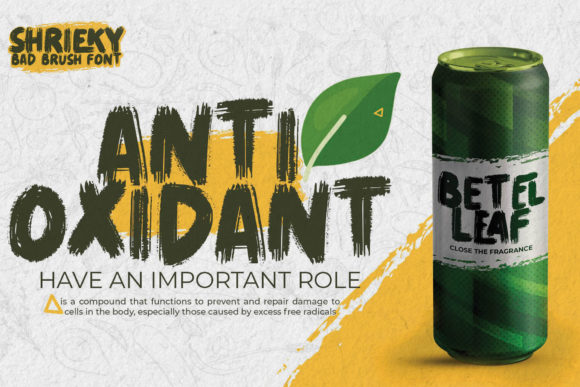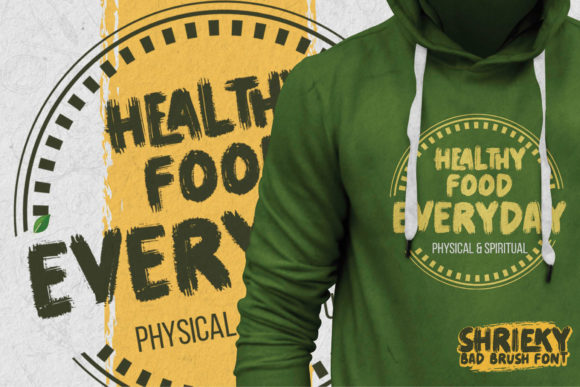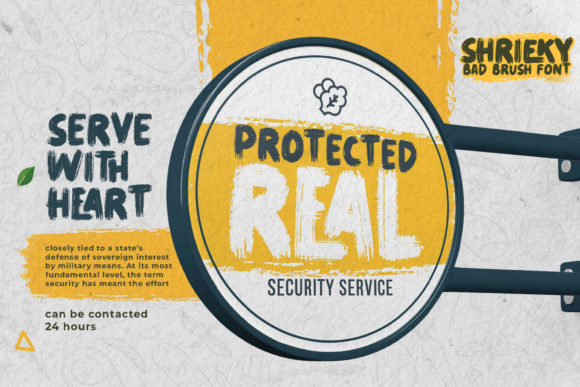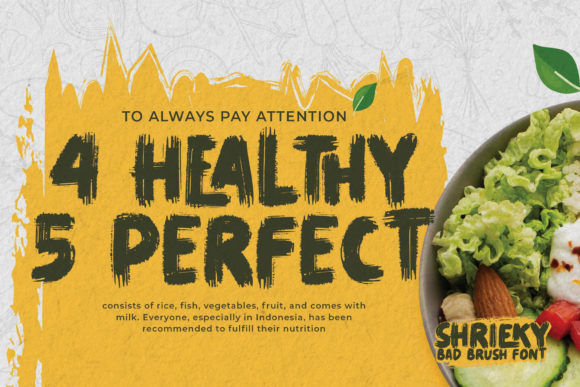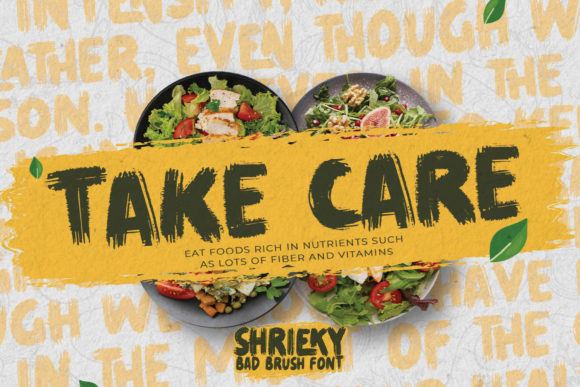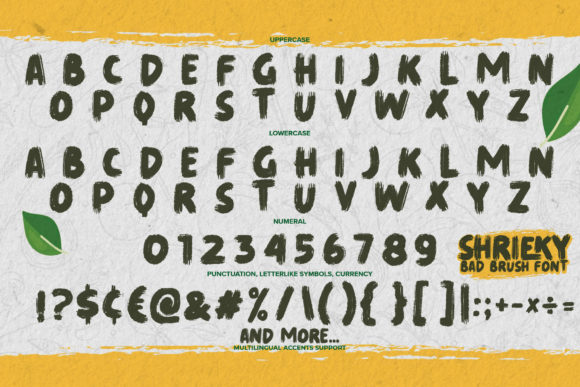
Introduction to SHRIEKY Font Font
Fonts play a crucial role in design, and the SHRIEKY Font font is a typeface that brings both character and versatility to any project. Whether you’re working on a branding project, a website, or a print design, the SHRIEKY Font font offers a unique style that can elevate your work.
This font SHRIEKY is great for your next creative project such as logos, printed quotes, invitations, cards, product packaging, headers, Logotype, Letterhead, and perfect for logos & branding, invitation, advertisements, product designs, stationery, wedding designs, label, product packaging, special events or anything that needs a handwriting taste.
It adds a charming and relaxed natural look to your text This font is PUA encoded which means you can access all of 16 Ligatures glyphs.
Key Features of SHRIEKY Font Font
• ✅ High-quality typeface designed for professional use
• ✅ Includes a wide range of glyphs and characters
• ✅ Ideal for logos, branding, websites, and print
Why Choose SHRIEKY Font Font?
The SHRIEKY Font font is more than just a typeface – it’s a design tool that helps you communicate your message with style and clarity. Its unique character set and versatile design make it suitable for a wide range of applications, from elegant invitations to bold headlines.
With its carefully crafted letterforms and balanced proportions, the SHRIEKY Font font ensures readability and visual appeal across all mediums.
What makes SHRIEKY Font font special?
The SHRIEKY Font font stands out with its unique design, exceptional readability, and versatility across various design applications.